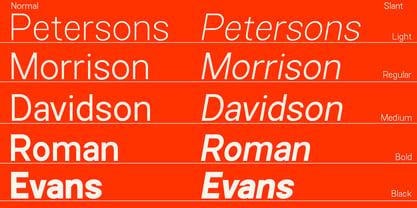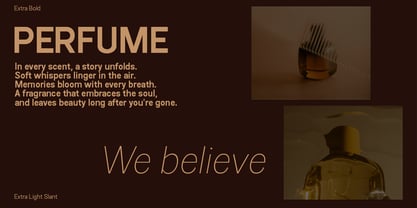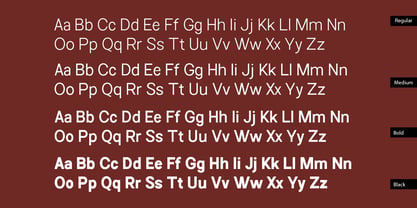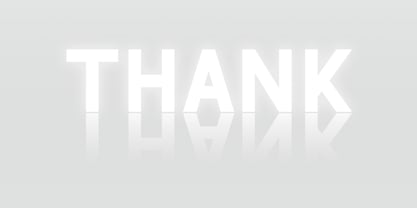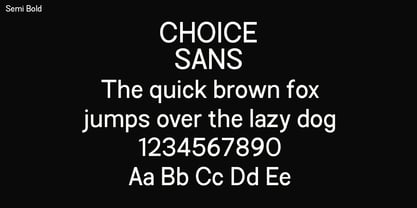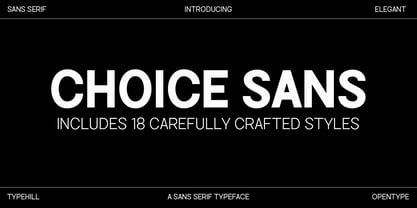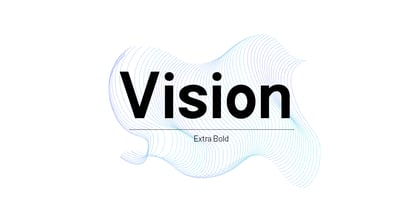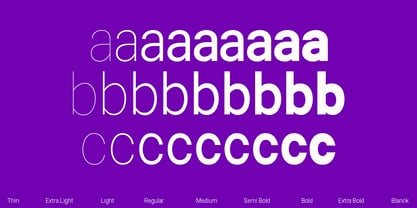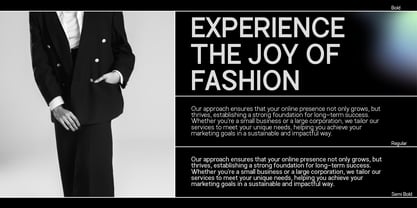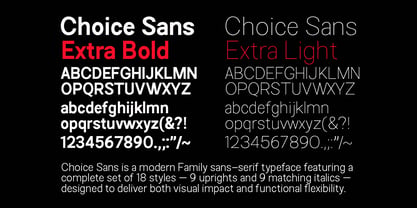
Choice Sans
by Typehill Studio
The Choice Sans Font Family was designed by Teuku Fahruddin and published by Typehill Studio. Choice Sans contains 19 styles and family package options. More about this family
Choice Sans is a modern variable sans-serif typeface featuring a complete set of 18 styles — 9 uprights and 9 matching italics — designed to deliver both visual impact and functional flexibility. Its broad weight range and refined construction make it an excellent choice for everything from bold branding to sleek editorial and digital interfaces.
With clean, geometric shapes and carefully balanced proportions, Choice Sans offers a contemporary aesthetic that remains approachable and legible across sizes. The variable design axes allow for smooth transitions between styles, enabling fluid adaptation in responsive layouts and dynamic typography systems.
Whether you're working on expressive headlines, minimalist UI elements, or elegant long-form text, Choice Sans provides the tools to craft a cohesive and modern typographic voice.